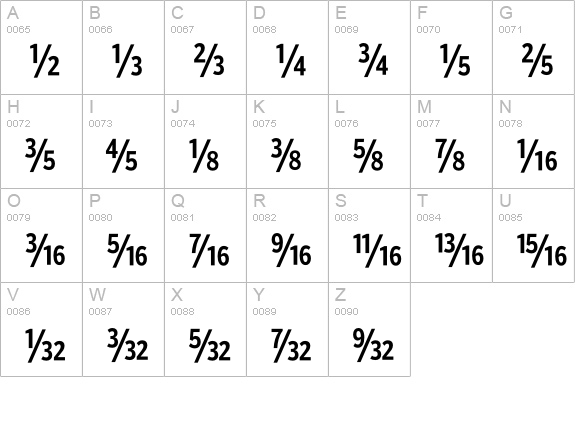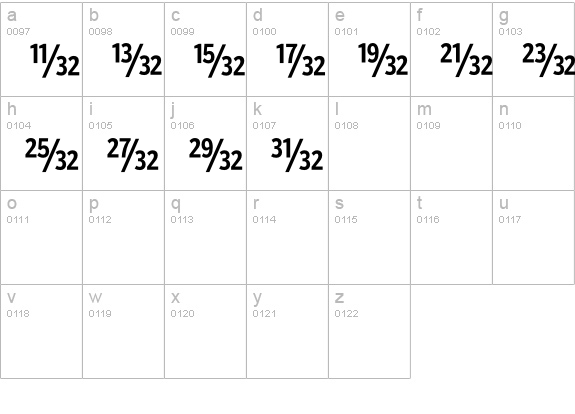
PoynterAgate-CompFracOne Font Details
PoynterAgate-CompFracOne font is a sleek and elegant typeface designed for professional use. With its clean lines and modern aesthetic, this font is perfect for adding a touch of sophistication to any project. The unique combination of agate and compact fractions in this font sets it apart, making it ideal for editorial design, branding, and more. What's even better is that PoynterAgate-CompFracOne font is available for free download at FontsMarket.com. Users can easily access this stylish font and incorporate it into their design projects without any cost. Whether you're looking to create a polished magazine layout or a refined logo, PoynterAgate-CompFracOne font offers versatility and style, all at no charge. Download this font today and elevate your designs with ease.